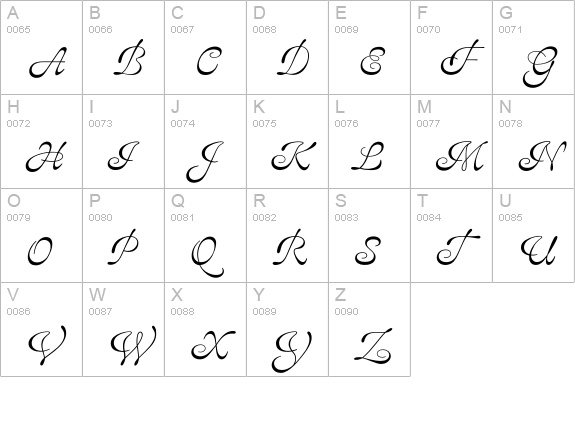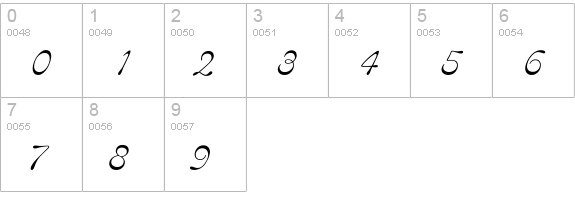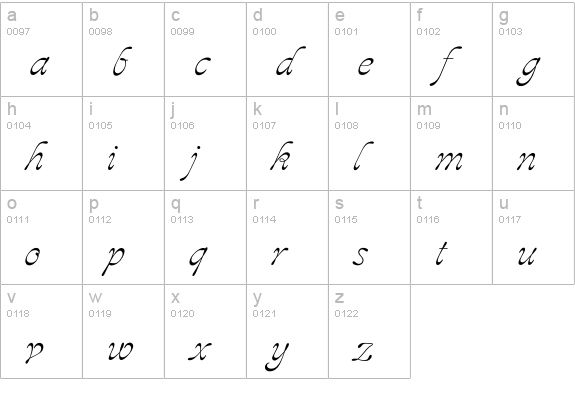
OPTIAjax Font Details
Introducing OPTIAjax - a striking and versatile font that exudes modernity and sophistication. With its clean lines and contemporary design, OPTIAjax is perfect for a wide range of applications, from logos and branding to editorial design and web graphics. Its sleek and stylish look will make your projects stand out and leave a lasting impression on your audience. But the best part? OPTIAjax is completely free to download at FontsMarket.com! That's right, you can get your hands on this stunning font without spending a dime. So why wait? Elevate your designs with OPTIAjax today and unleash your creativity like never before.